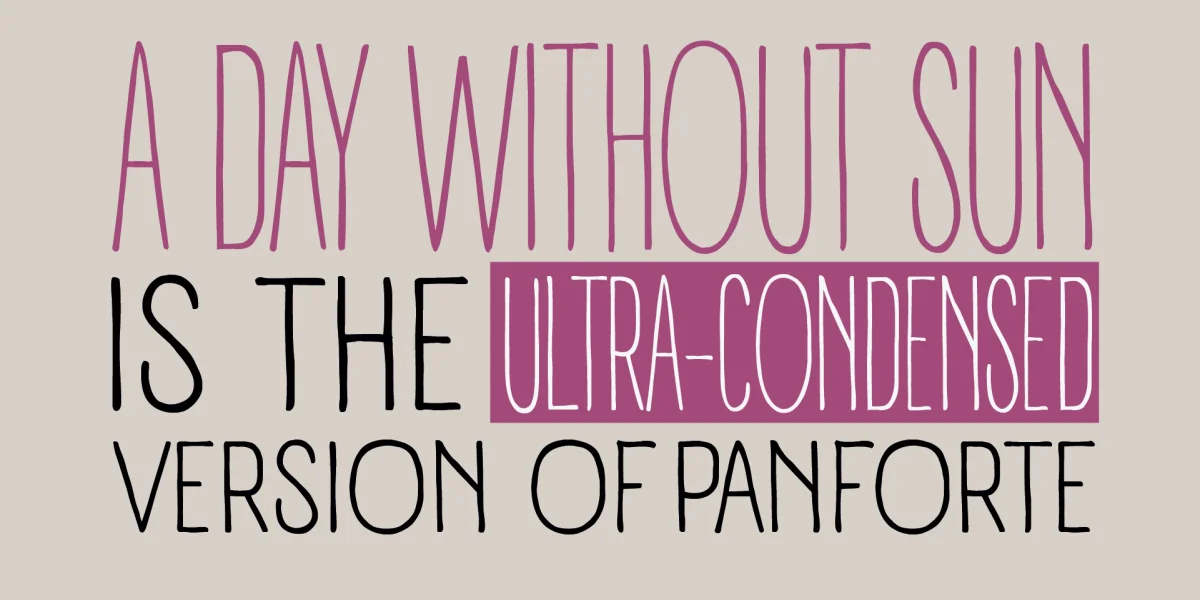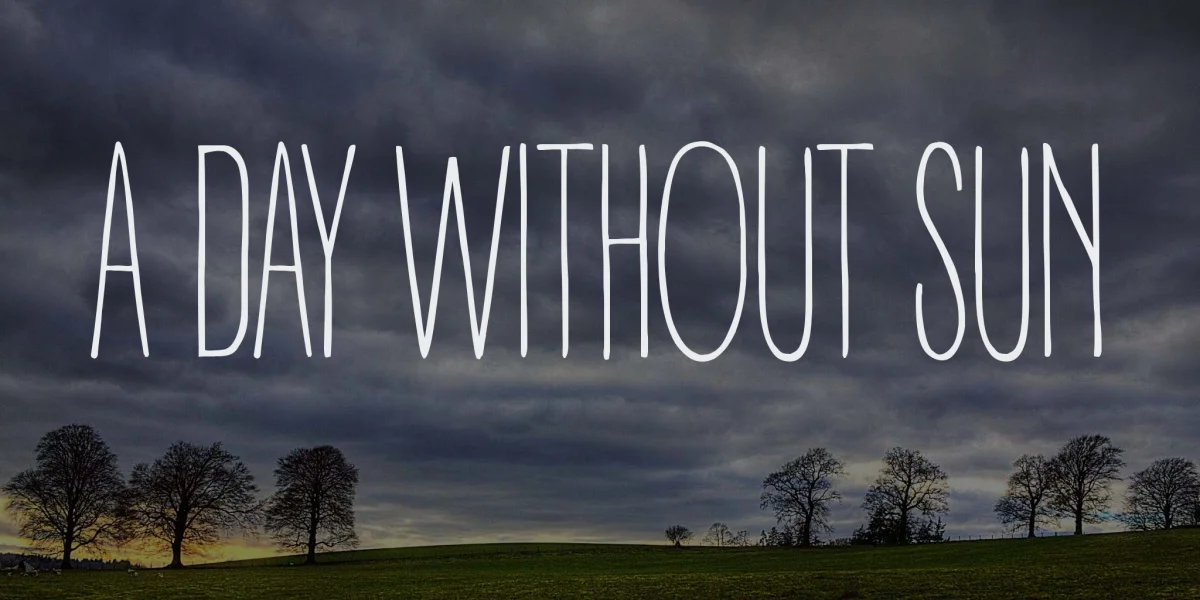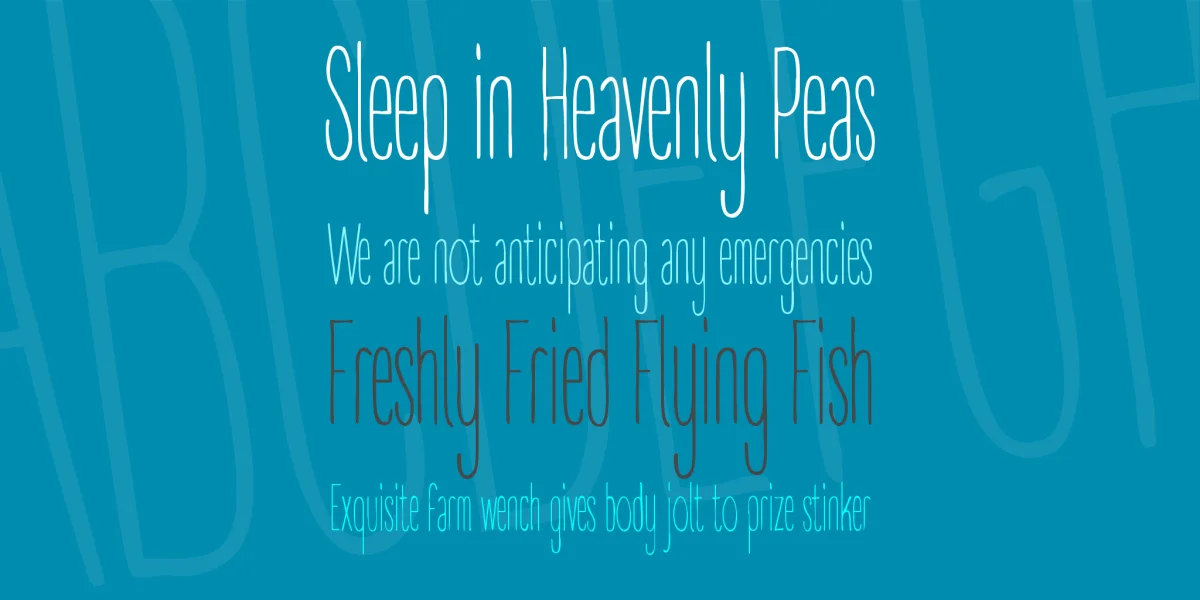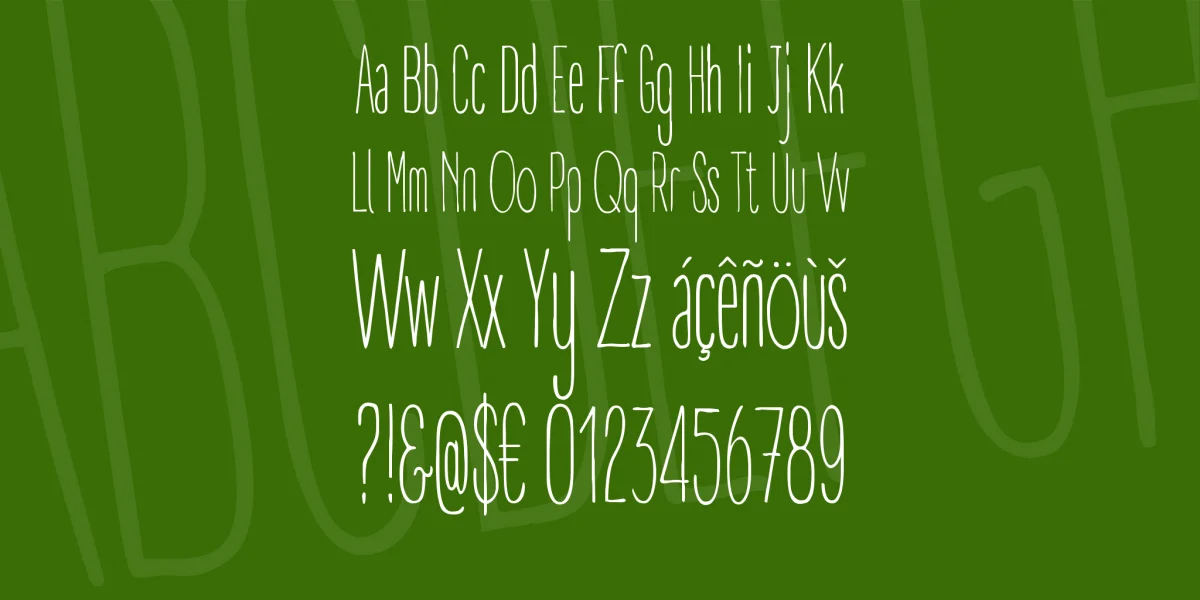
A DAY WITHOUT SUN is a new fancy handwritten fonts related to the Panforte Collection. Combine with the Panforte for more awesome combination. For commercial licence please visit our site.